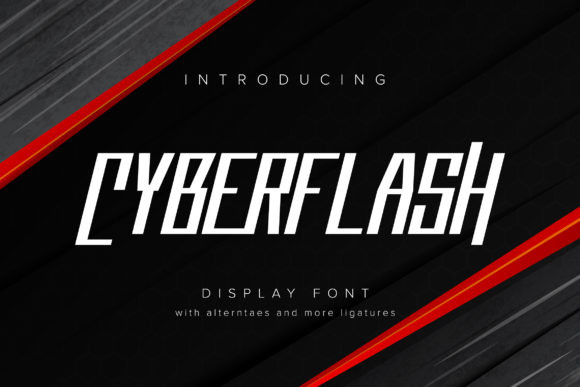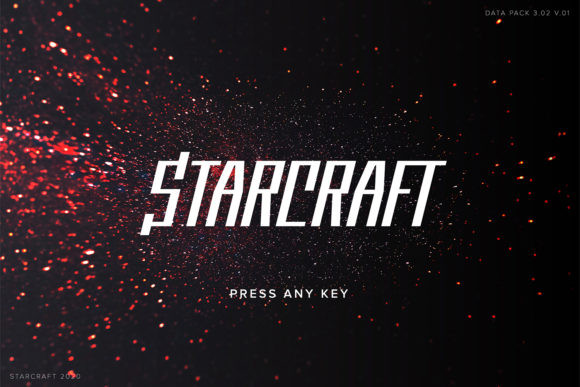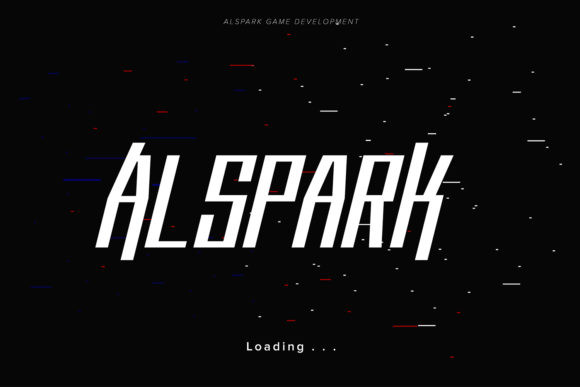
Cyberflash Font
Cyberflash is inspired by classic typography and brings its own unique style to any design project. This fantastic display font is best suited for headlines of all sizes, as well as for blocks of text that have both maximum and minimum variations. Whether it’s for web, print, moving images or anything else – Cyberflash will look spectacular.